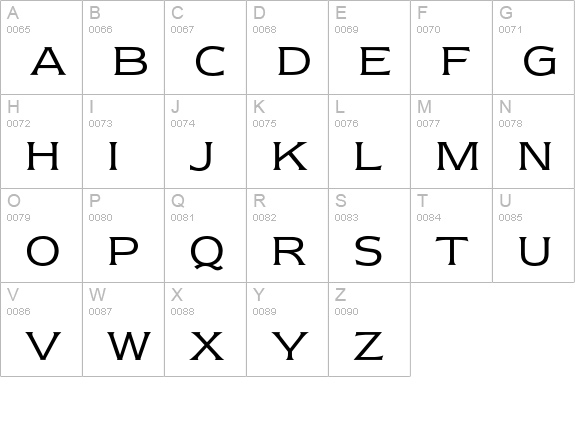
Newtext Book is a comfortable, highly readable variant in the Newtext typeface family \xE2\x80\x94 well suited to long-form body text, articles, and editorial content.
Introducing Newtext Book font, a classic and versatile typeface perfect for all your design needs. With its clean lines and timeless elegance, Newtext Book font is the ideal choice for any project, whether it be print or digital. What sets Newtext Book font apart is not only its exceptional readability but also its sense of sophistication and style. This font is designed to convey a sense of professionalism and refinement, making it perfect for academic papers, books, and other formal documents. Best of all, Newtext Book font is completely free to download at FontsMarket.com. That's right, you can access this high-quality font without spending a dime. So why wait? Elevate your designs with Newtext Book font today!